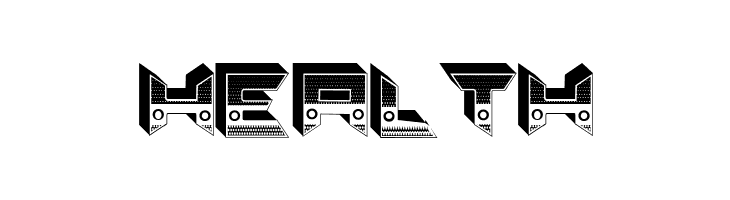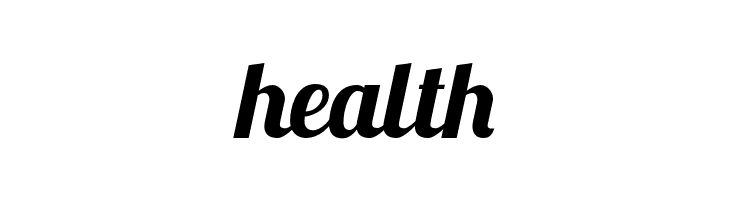
A bold, decorative font with a futuristic, industrial design featuring geometric patterns.
A bold, elegant script font with a modern touch and flowing characters.
A bold, flowing script font with a playful and elegant style.
A bold, flowing script font with modern elegance and playful sophistication.
A playful and elegant script font with modern, flowing curves.
A bold, playful script font with a vintage flair and strong decorative elements.
A bold, italic script font with a playful yet elegant style.
A modern, cursive italic font with smooth curves and elegant connections.
A bold, cursive font with elegant, flowing lines.